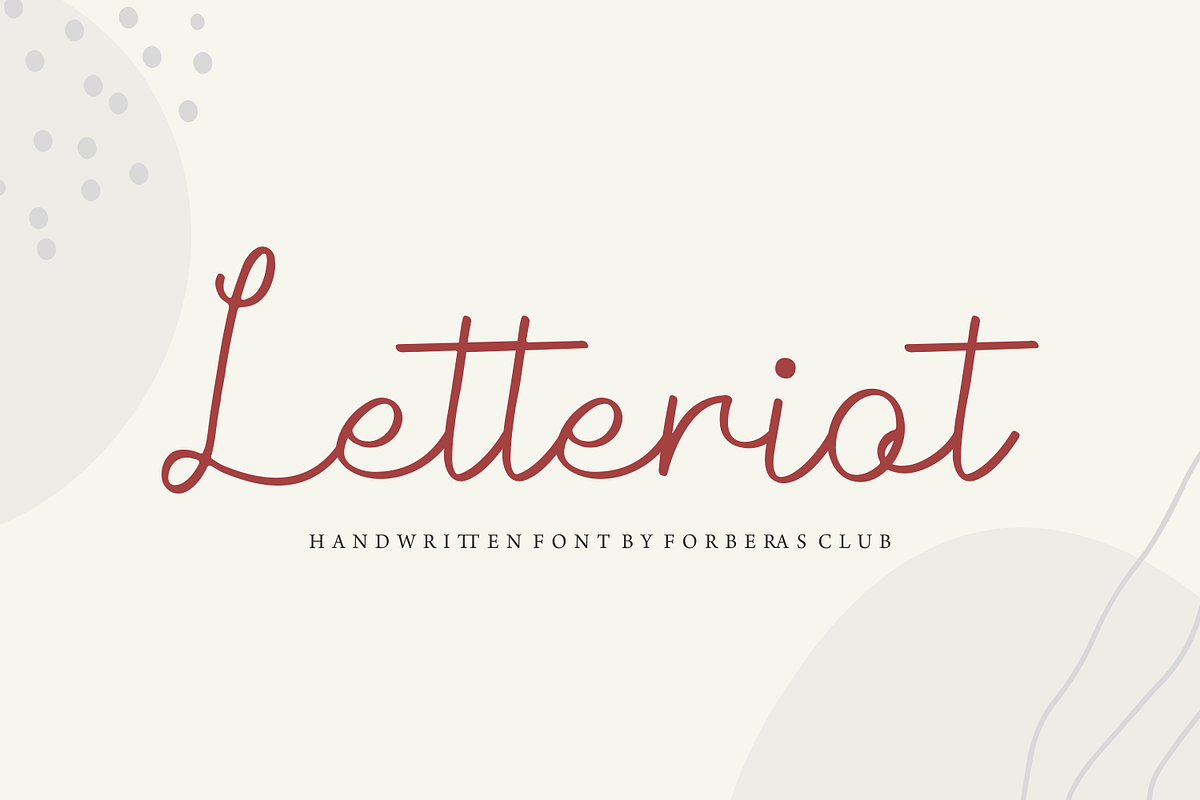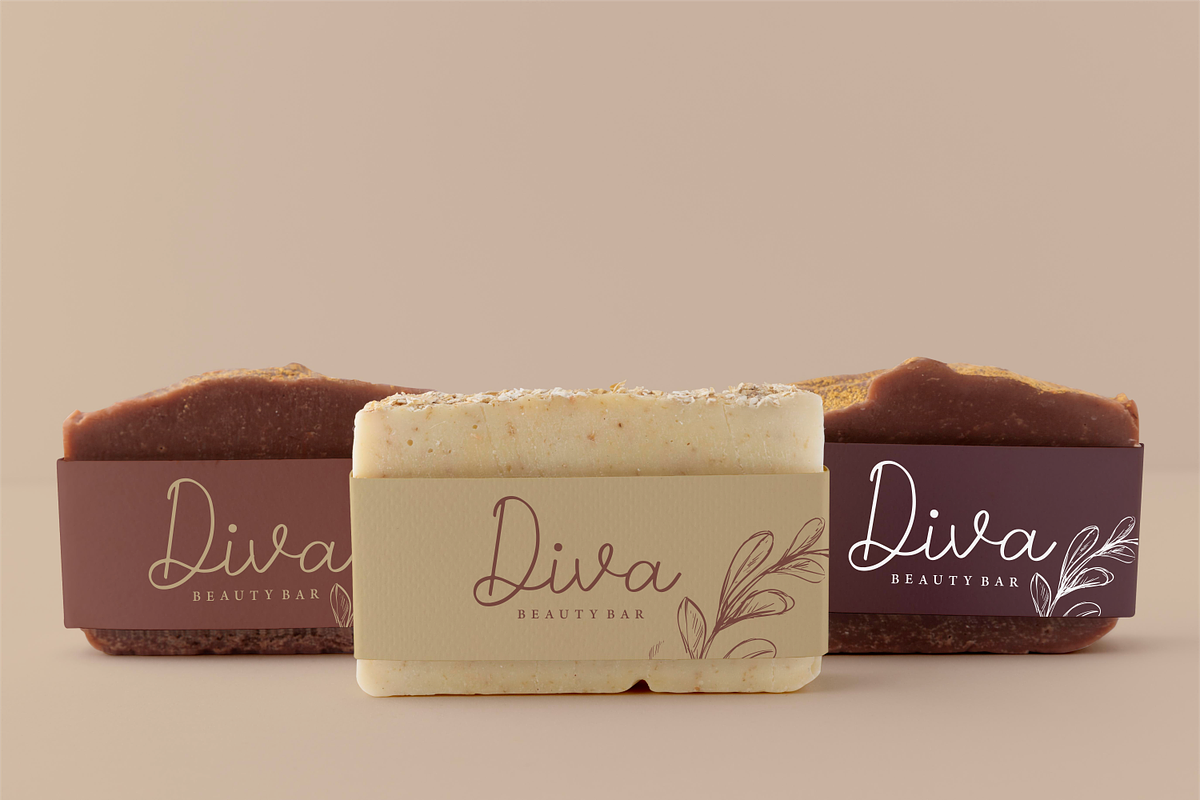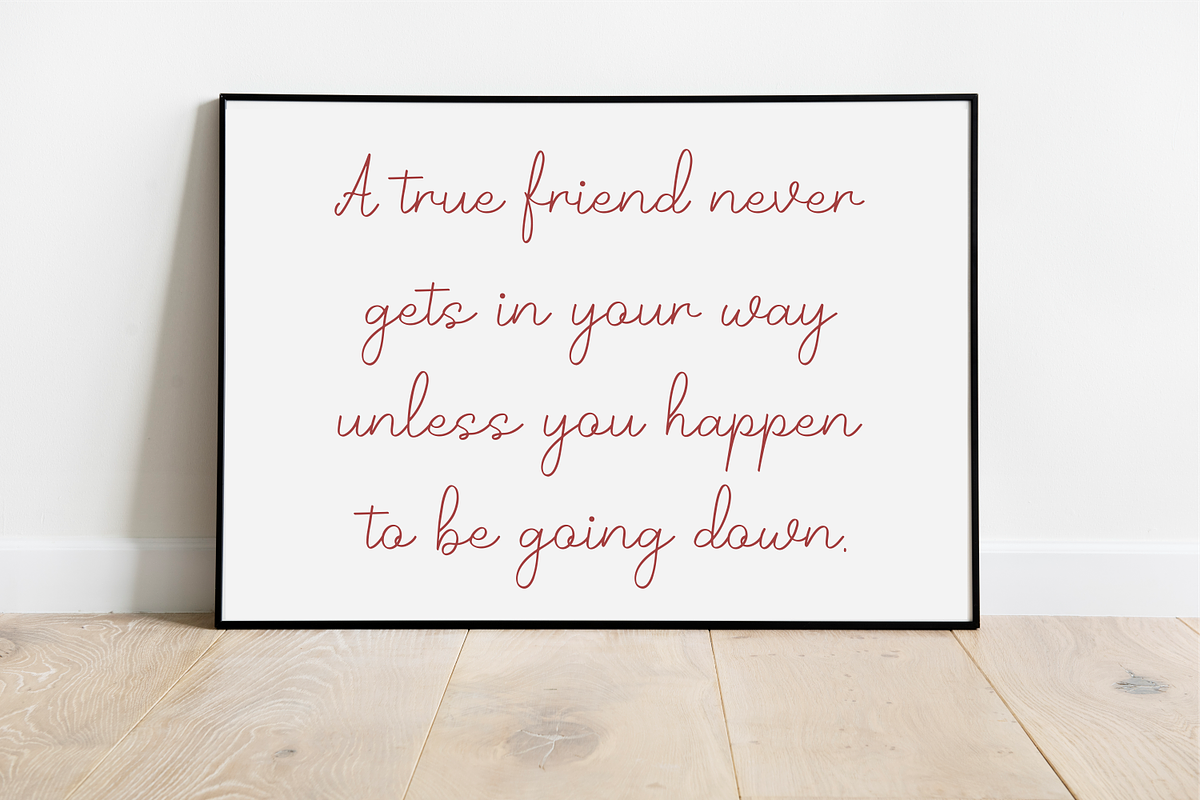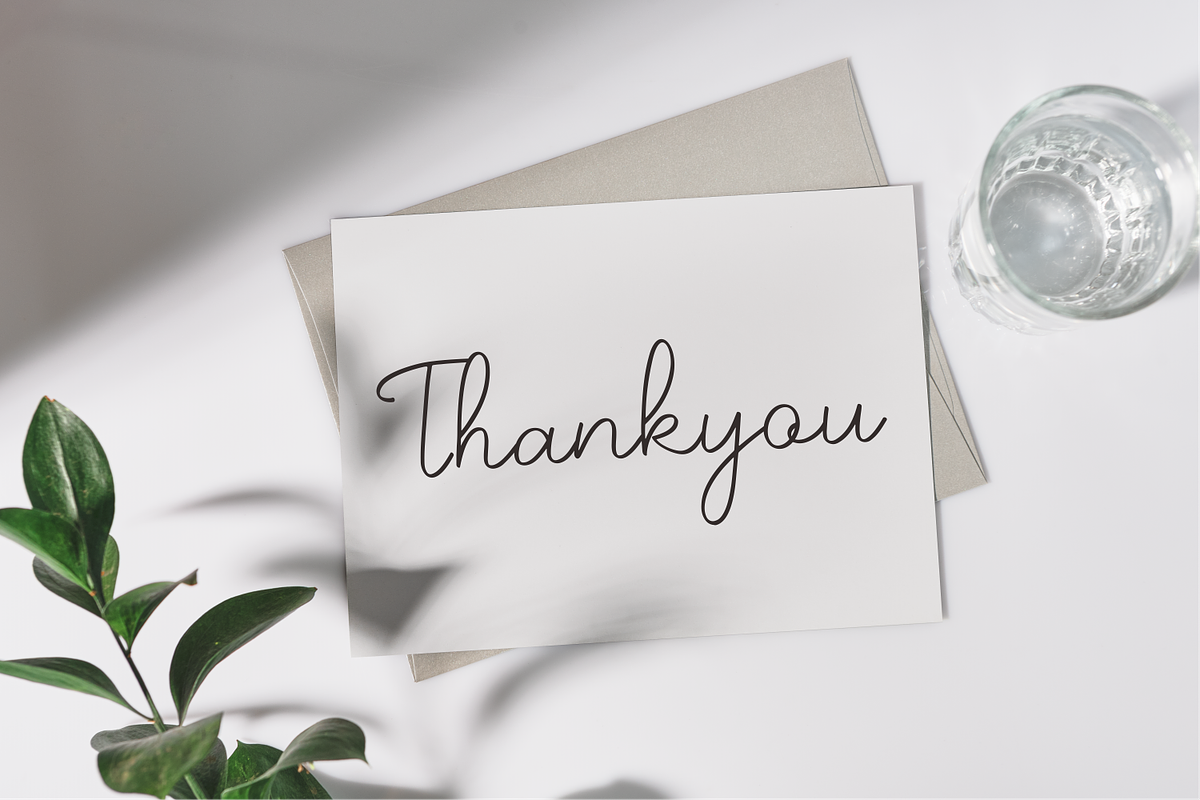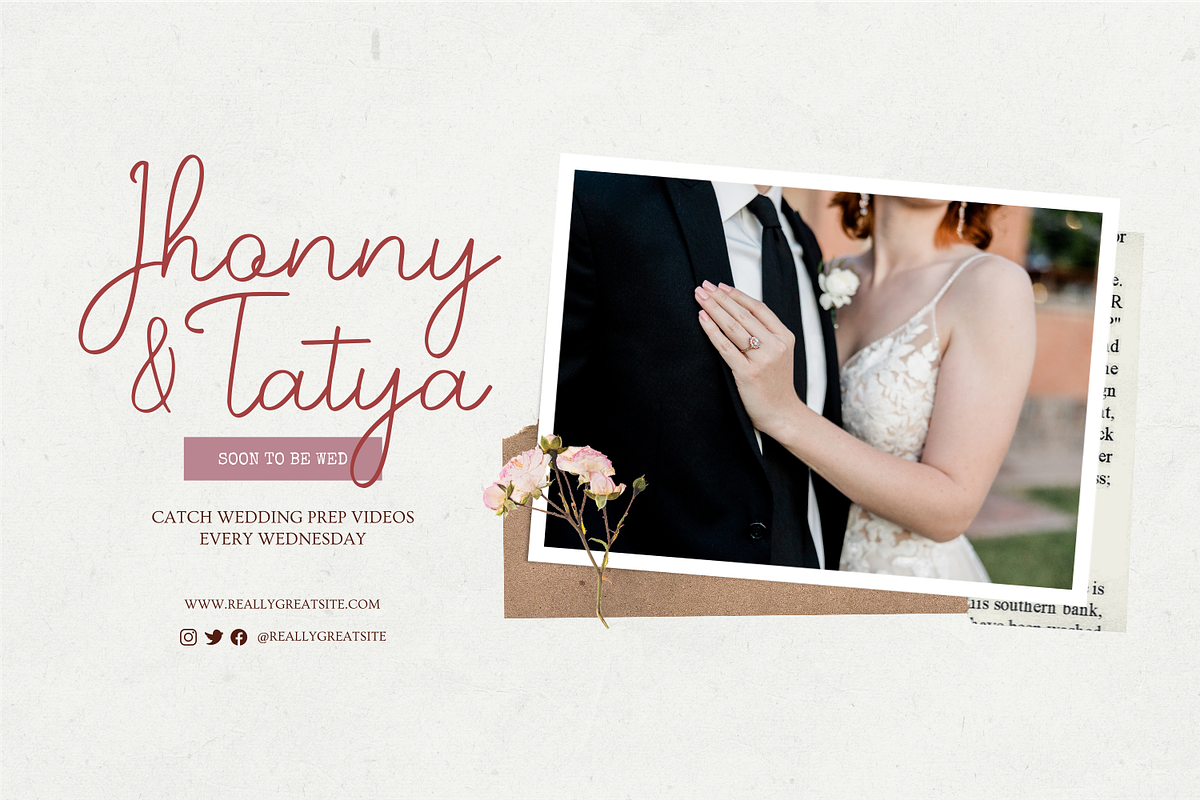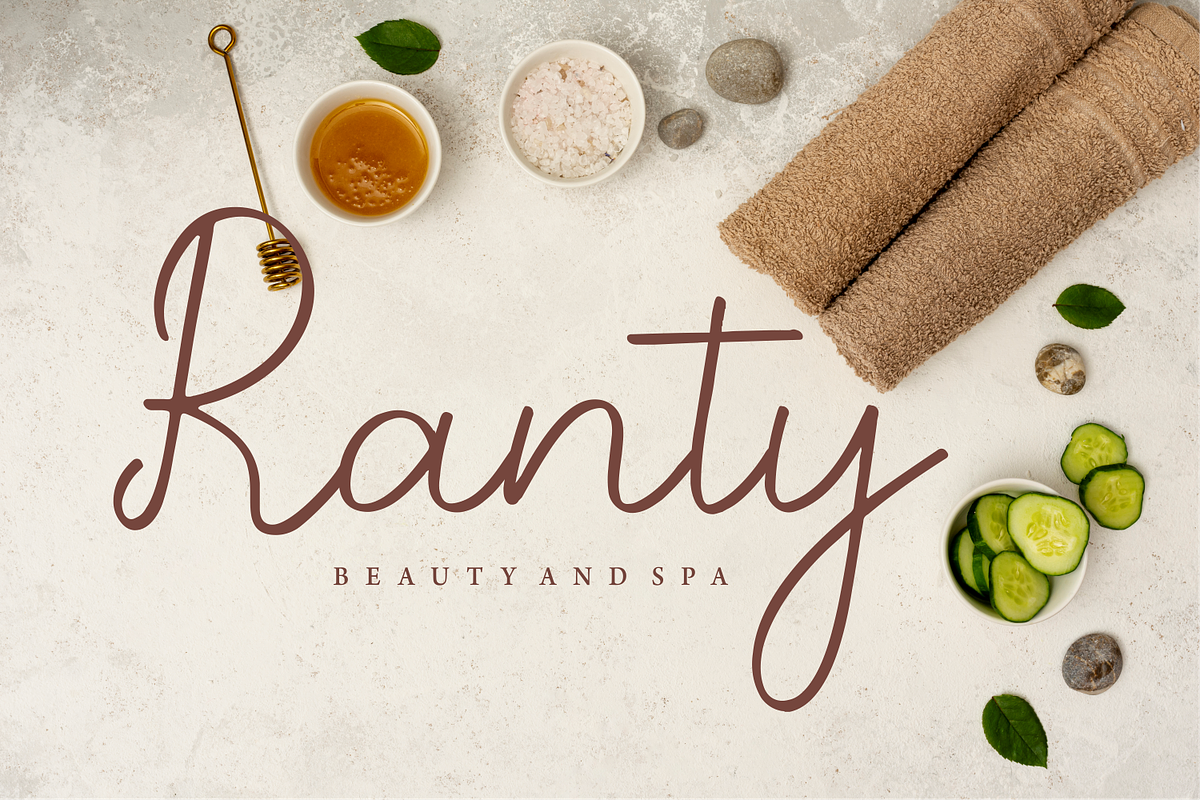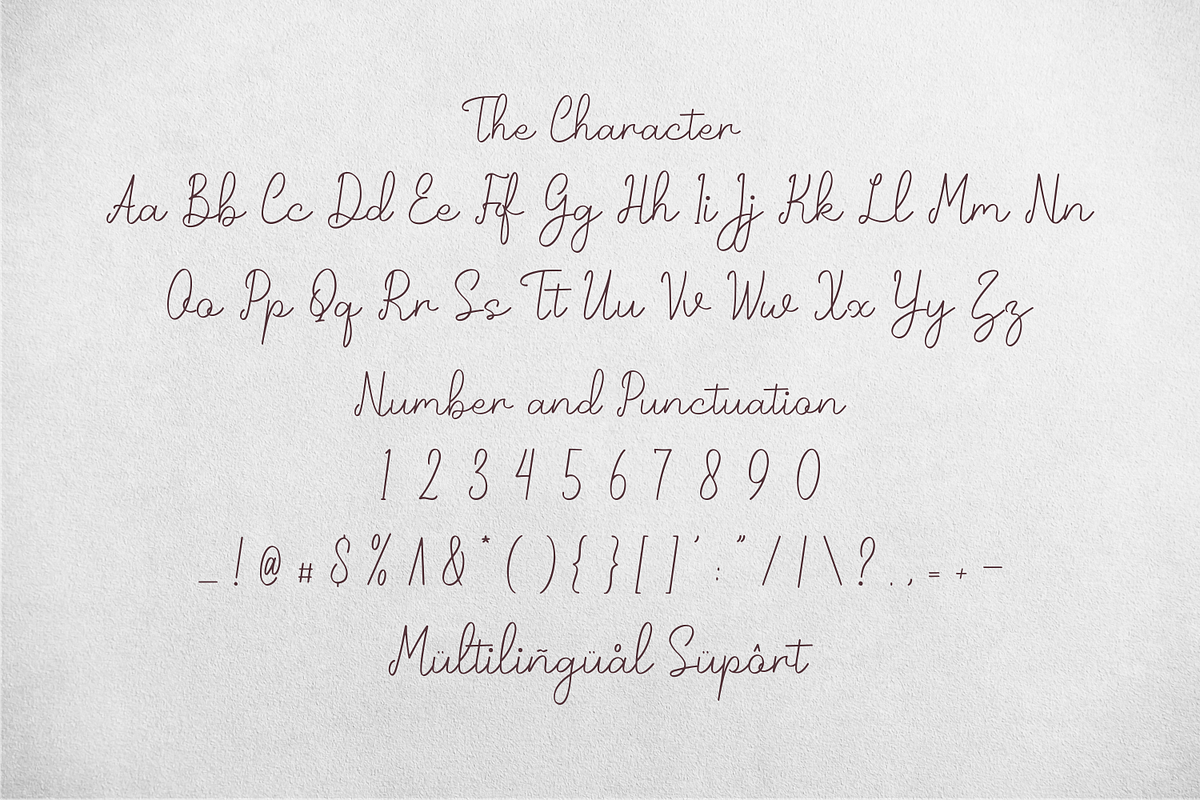
Letteriot | Script Handwritten
Introducing Letteriot by Forberas
Modern and beautiful handwritten script font! Great for wedding greeting cards, logos, branding materials, Invitation, business cards, quotes, posters, Cricut artwork and more!